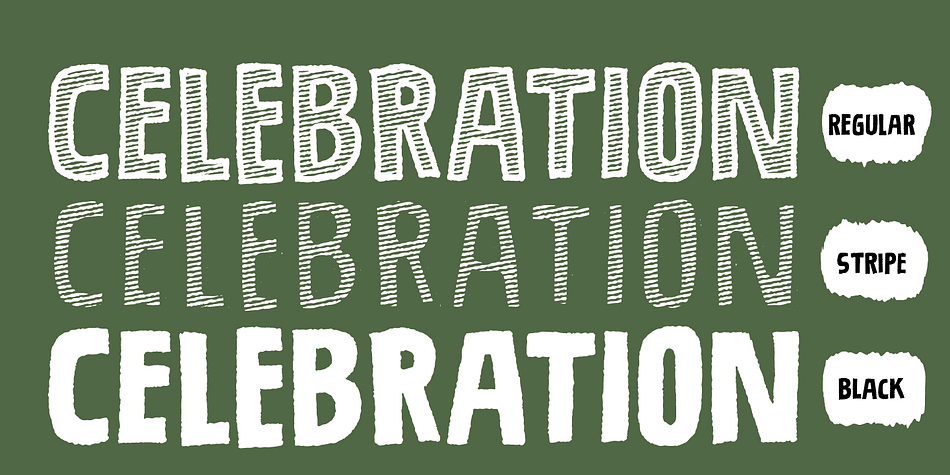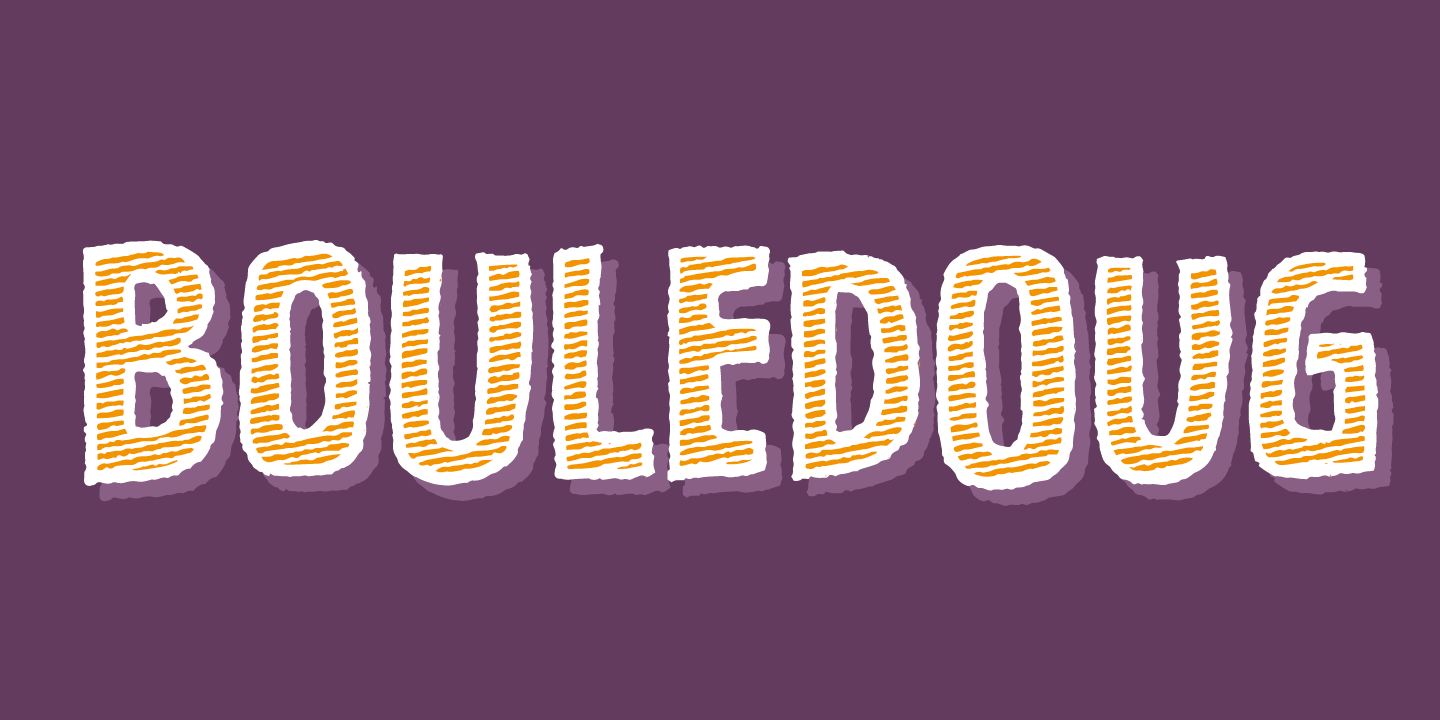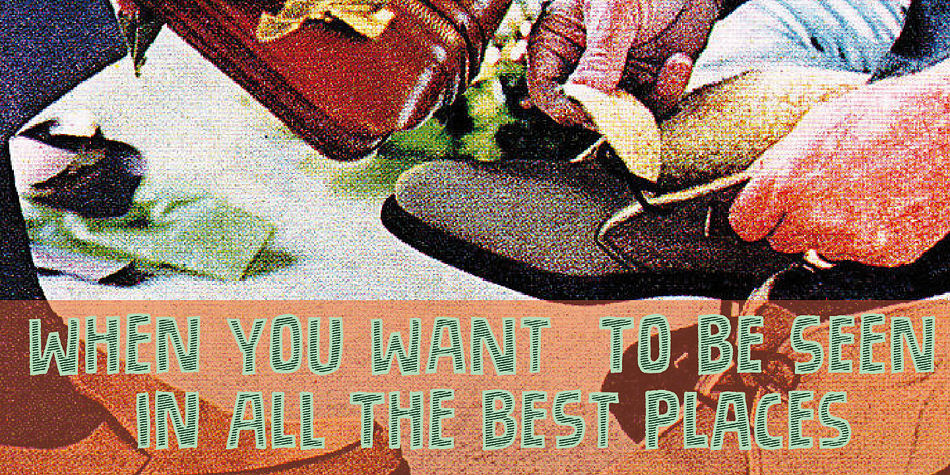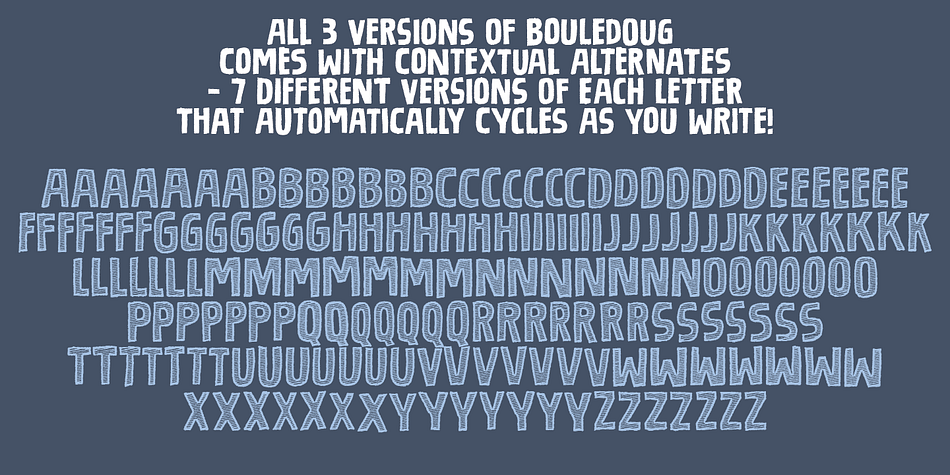
Bouledoug is a hand display font family. This typeface has three styles and was published by Pizzadude.dk.
Bouledoug comes in 3 different versions: Regular, Stripe and Black. Play around with these 3 layers and create that handmade look everybody’s talking about!
Comes with contextual alternates that cycles through 7 different versions of each letter AS you type! Wow!